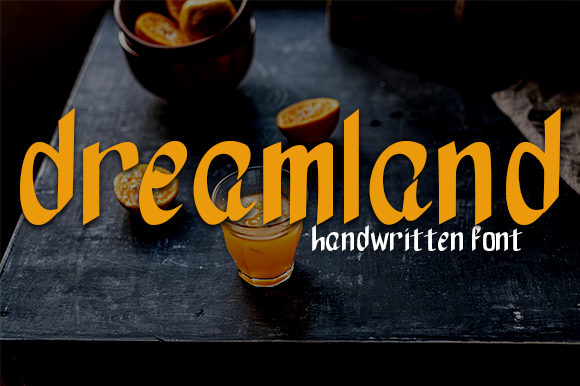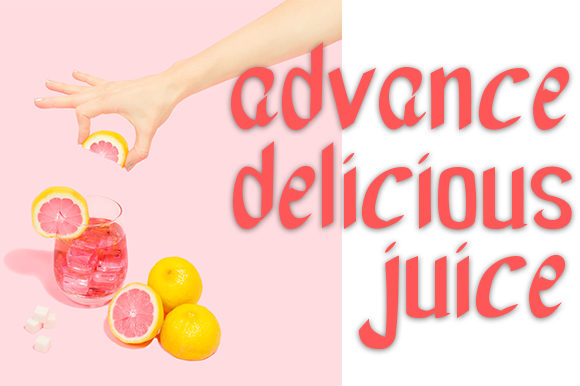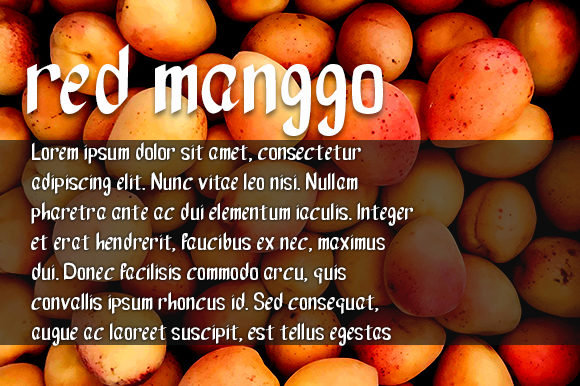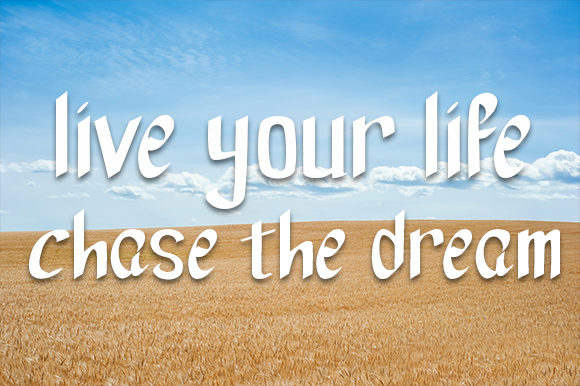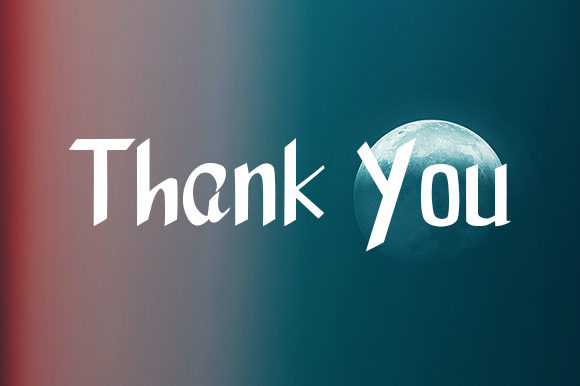
Dreamland Font
About Dreamland Font
Dreamland is a cute handwritten font. It features a relaxed feel that makes it perfect for quotes, logos, t-shirts, stationery, greeting cards and much more!